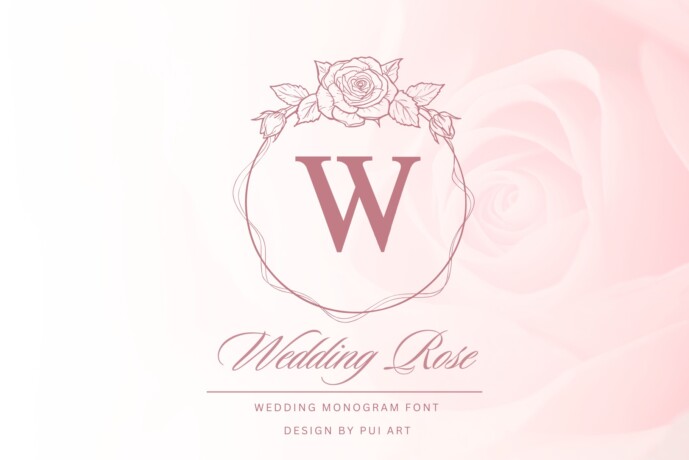
Wedding Rose Monogram Font
Designer: Pui Art
Wedding Rose Monogram is a graceful typeface designed for romantic occasions. Featuring floral embellishments and timeless serif characters, it’s perfect for wedding invitations, stationery, gift packaging, logos, and branding where elegance and love bloom together. The rose motif adds a soft, romantic charm ideal for couples and feminine design themes.